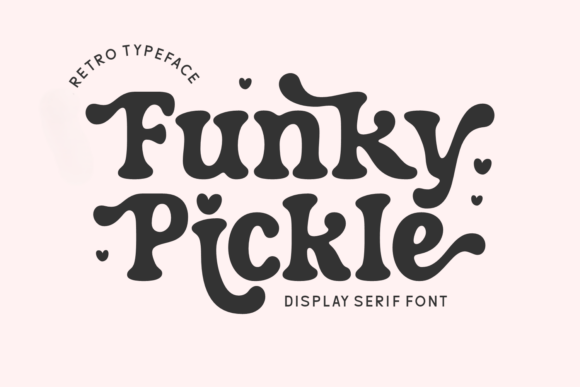
Make Your Designs Pop with the Funky Pickle Retro Font
In the realm of typography, few fonts manage to capture the essence of a bygone era while still exuding modern sophistication. The Funky Pickle Retro Font is one such typeface that seamlessly blends vintage charm with contemporary flair, making it an ideal choice for designers looking to add a touch of nostalgia to their creations.
A Groovy Retro Aesthetic
The Funky Pickle Retro Font boasts a playful and intriguing design, characterized by its curved lines and alternate characters. This unique blend of elements gives the font a groovy retro aesthetic that is sure to resonate with those who appreciate nostalgia. The playful curves and lines evoke a sense of fun and carefree spirit, reminiscent of the hipster and hippie themes that were popular in the 70s, 80s, and 90s.
Elegance and Sophistication
While the Funky Pickle Retro Font has a playful side, it also exhibits an elegant and stylish framework that adds an extra layer of sophistication to any design. The serif features of the font give it a quirky appeal, making it perfect for creating statements in various creative projects. Whether you’re designing a birthday card, a Valentine’s Day gift, or simply a social media post, this font is sure to make your designs pop.
Perfect for a Variety of Themes
The Funky Pickle Retro Font is an incredibly versatile typeface that can be used for a wide range of themes and projects. Its retro aesthetic makes it perfect for hipster and hippie-themed designs, while its elegant and sophisticated framework makes it suitable for more traditional projects. The font’s bold and summer vibe also makes it ideal for designs that require a casual and trendy feel.
Conveying Love and Romance
One of the standout features of the Funky Pickle Retro Font is its ability to convey love and romance in each stroke. The font’s playful curves and elegant lines make it perfect for designs that require a touch of warmth and affection. Whether you’re creating a Valentine’s Day card, a wedding invitation, or simply a social media post, this font is sure to capture the attention of your audience.
Crafted with Care by 7ntypes
The Funky Pickle Retro Font has been crafted by the talented designers at 7ntypes, who have carefully intertwined vintage charm and nostalgic traits to create a truly unique typeface. The font’s design is perfect for a variety of platforms, including Procreate and Cricut, making it easy to incorporate into your creative projects.
Unwrap Creativity with the Funky Pickle Retro Font
In conclusion, the Funky Pickle Retro Font is an essential typeface for any designer looking to add a touch of nostalgia and sophistication to their creations. With its playful curves, elegant lines, and quirky appeal, this font is sure to make a statement in any design project. Whether you’re a seasoned designer or just starting out, the Funky Pickle Retro Font is a must-have in your typography arsenal.
Key Features of the Funky Pickle Retro Font
- Groovy retro aesthetic with playful curves and alternate characters
- Elegant and stylish framework with serif features
- Perfect for a variety of themes, including hipster and hippie designs
- Conveys love and romance in each stroke
- Crafted by talented designers at 7ntypes
Tips for Using the Funky Pickle Retro Font
- Use the font for birthday and Valentine’s Day designs
- Experiment with different colors and textures to enhance the font’s retro aesthetic
- Pair the font with other vintage-inspired typefaces for a unique look
- Use the font’s alternate characters to add visual interest to your designs
The Funky Pickle Retro Font is a unique and captivating typeface that is sure to make your designs pop. With its blend of vintage charm and modern sophistication, this font is perfect for designers looking to add a touch of nostalgia to their creations. Whether you’re a seasoned designer or just starting out, the Funky Pickle Retro Font is a must-have in your typography arsenal.